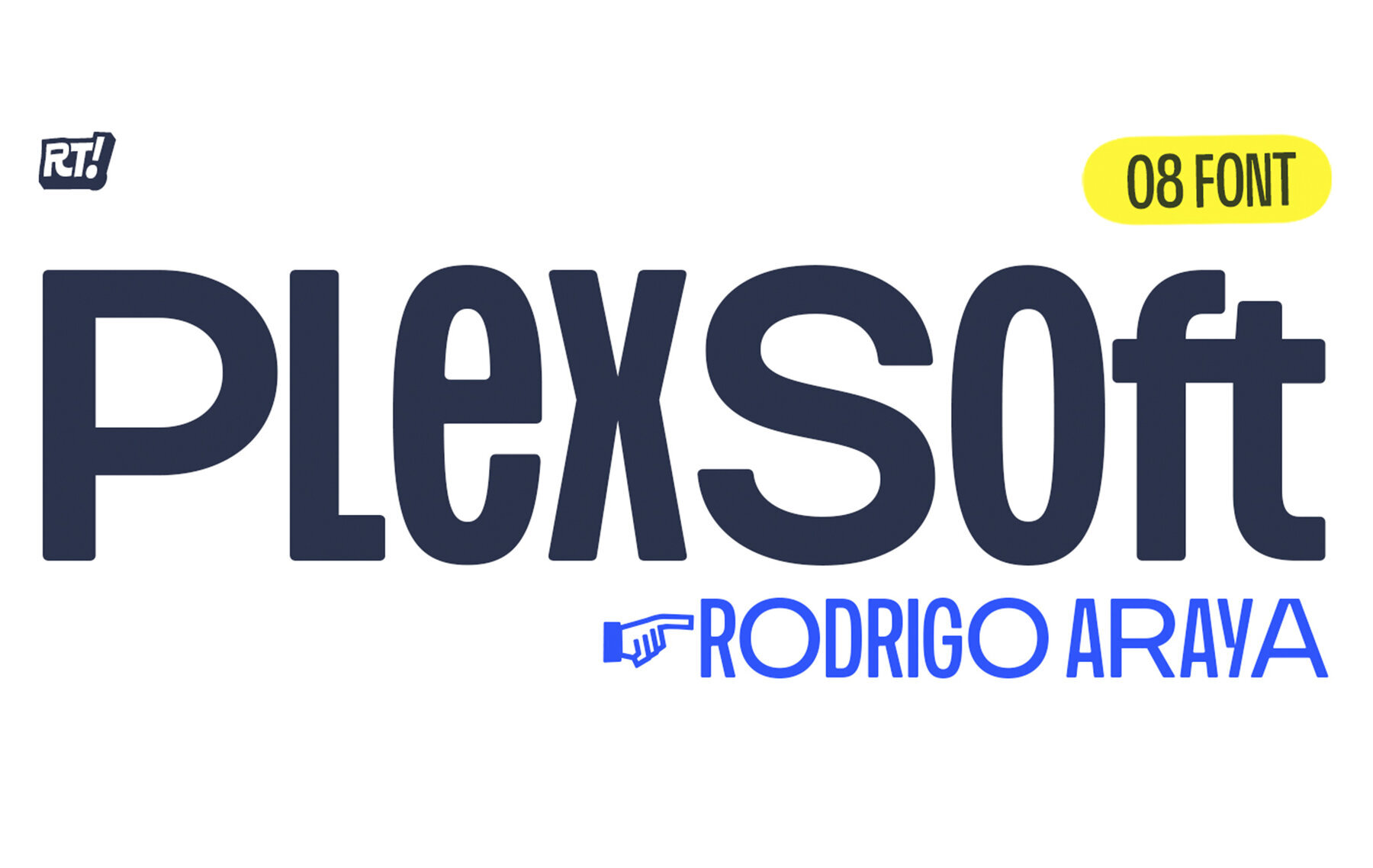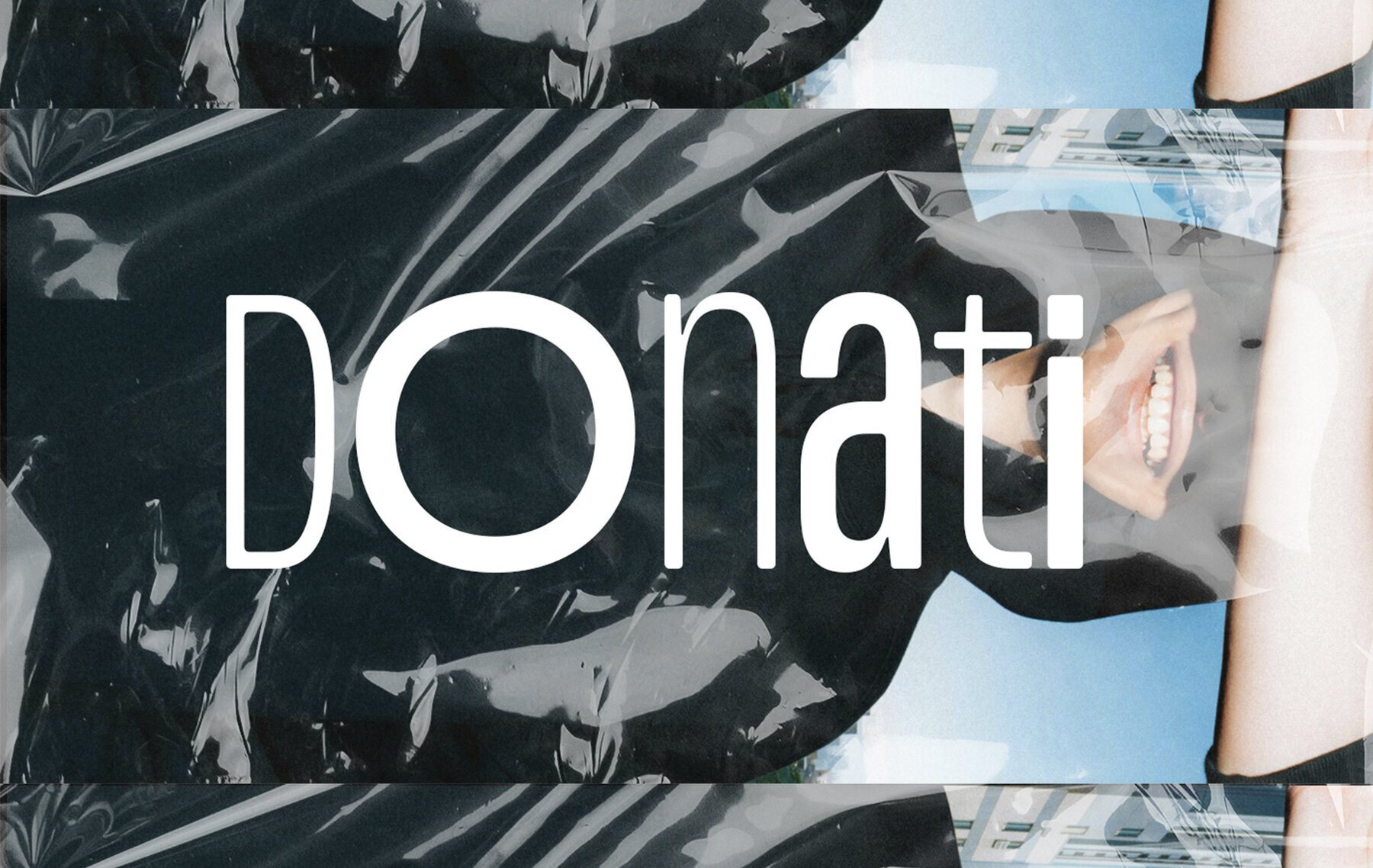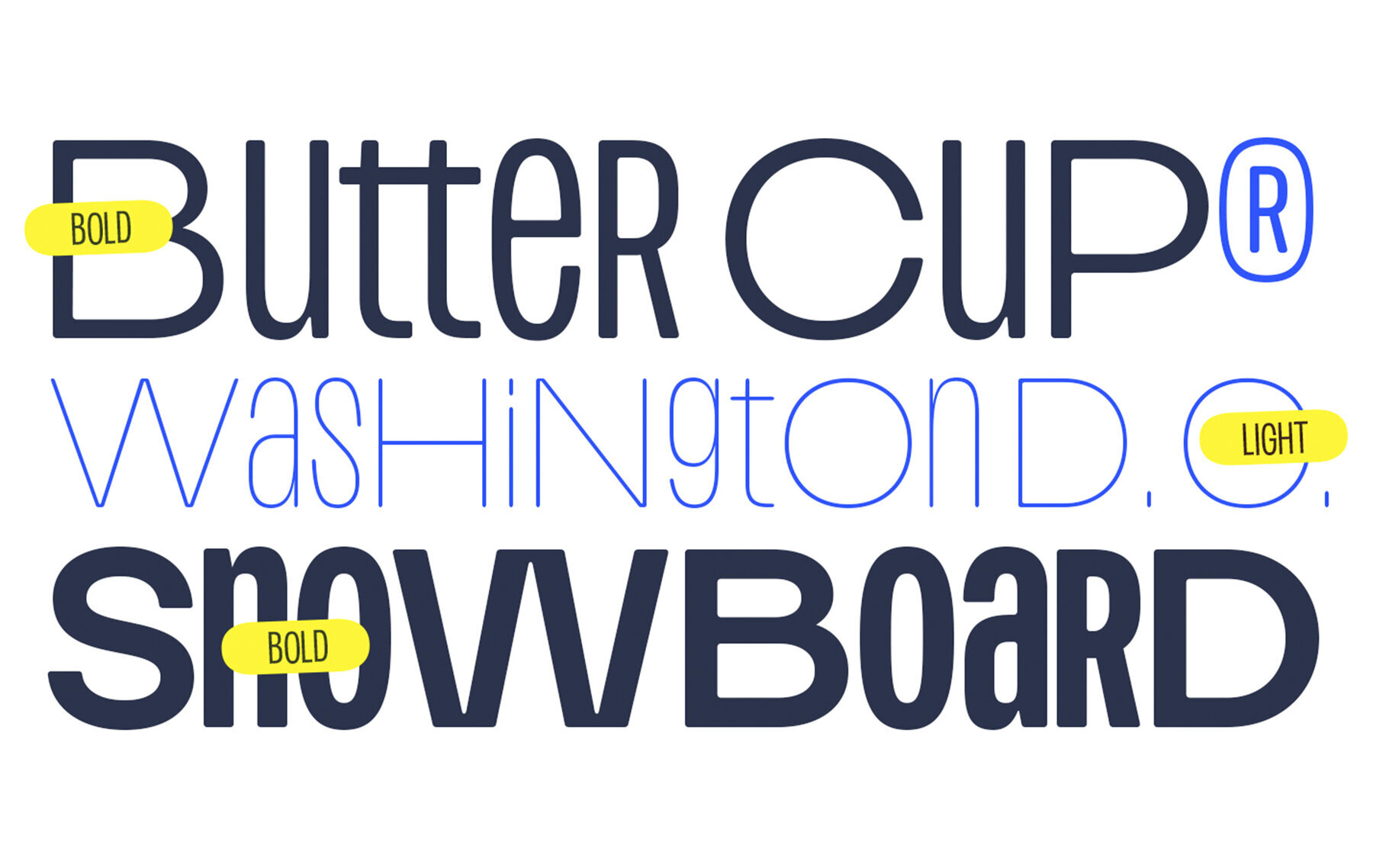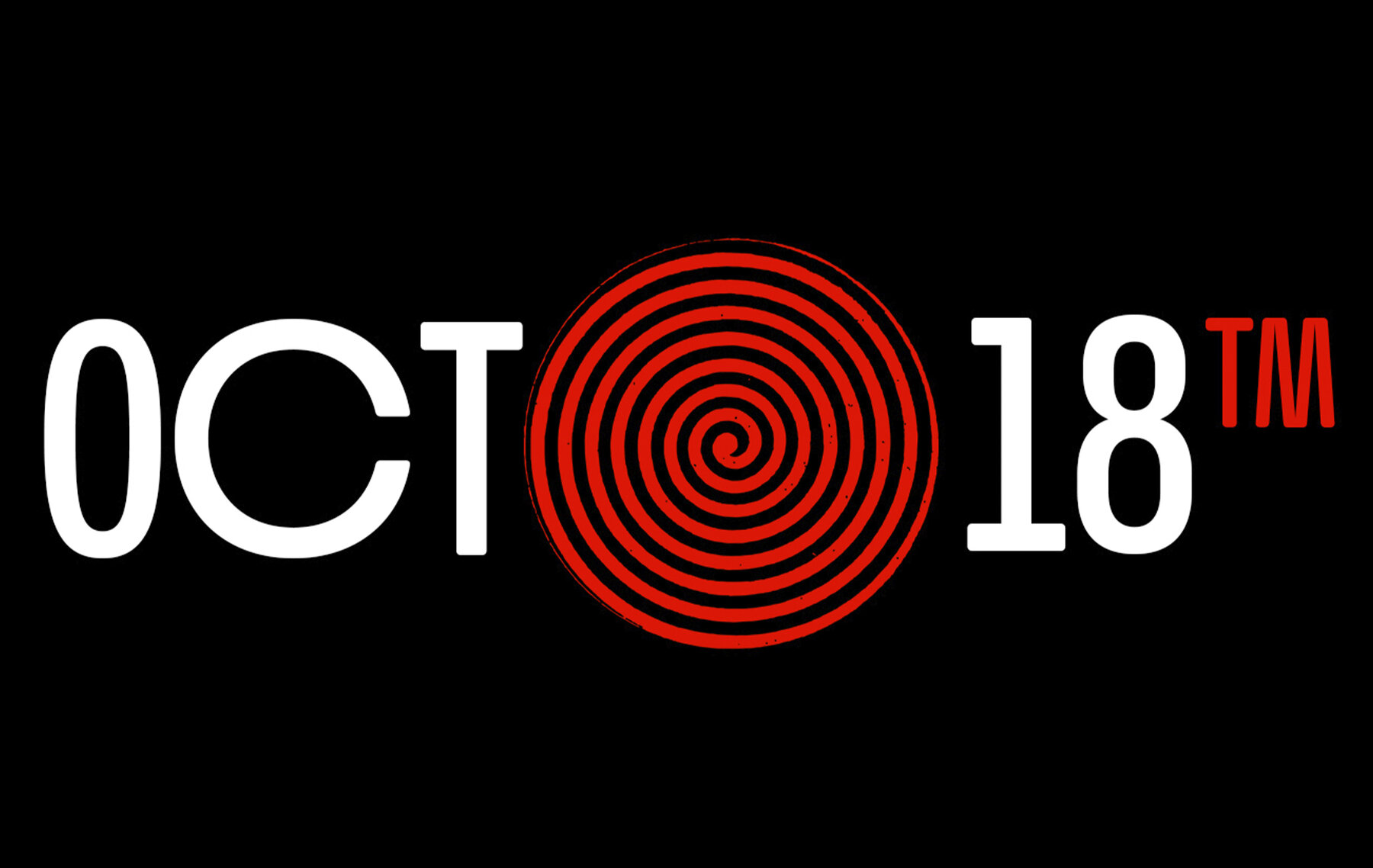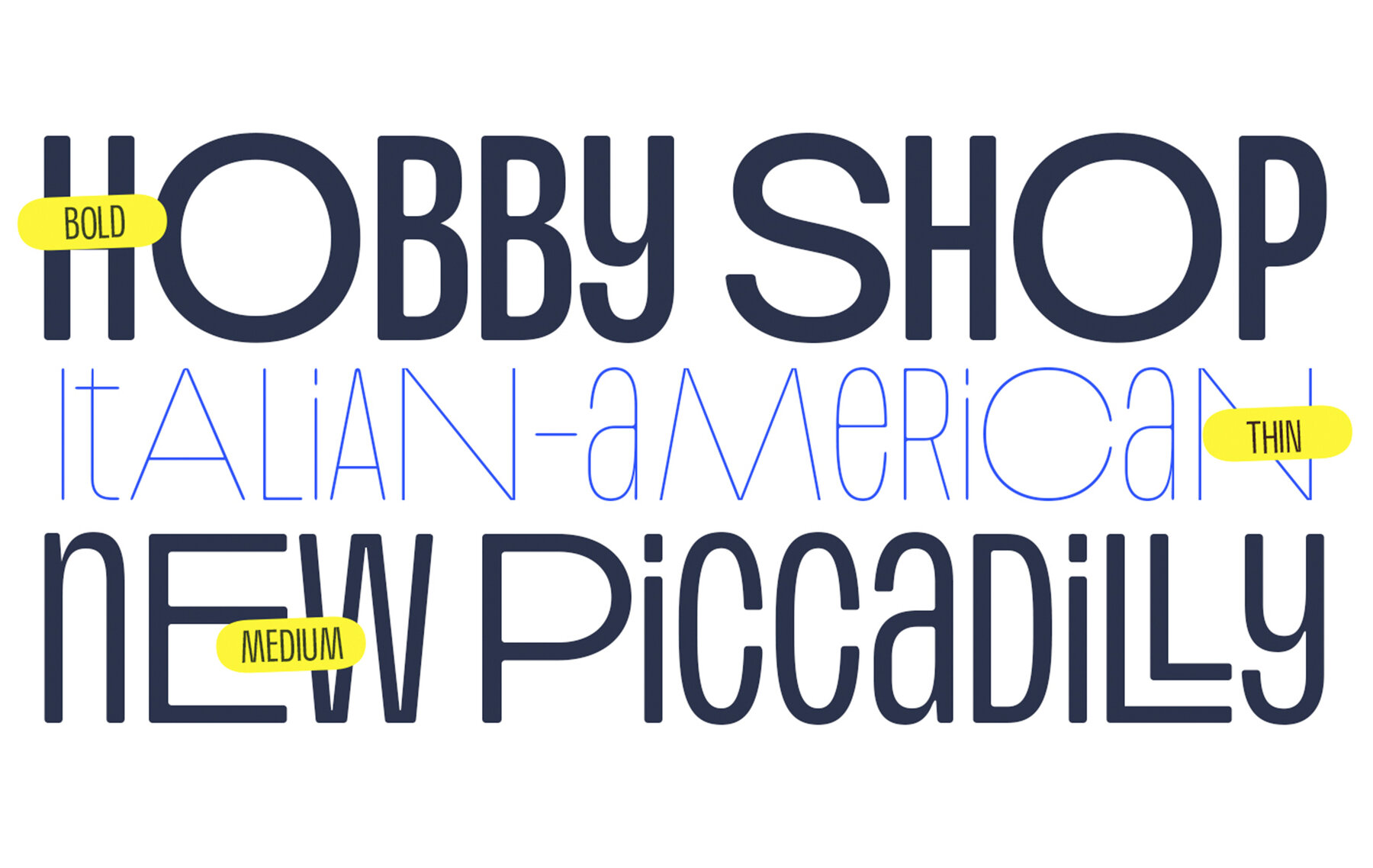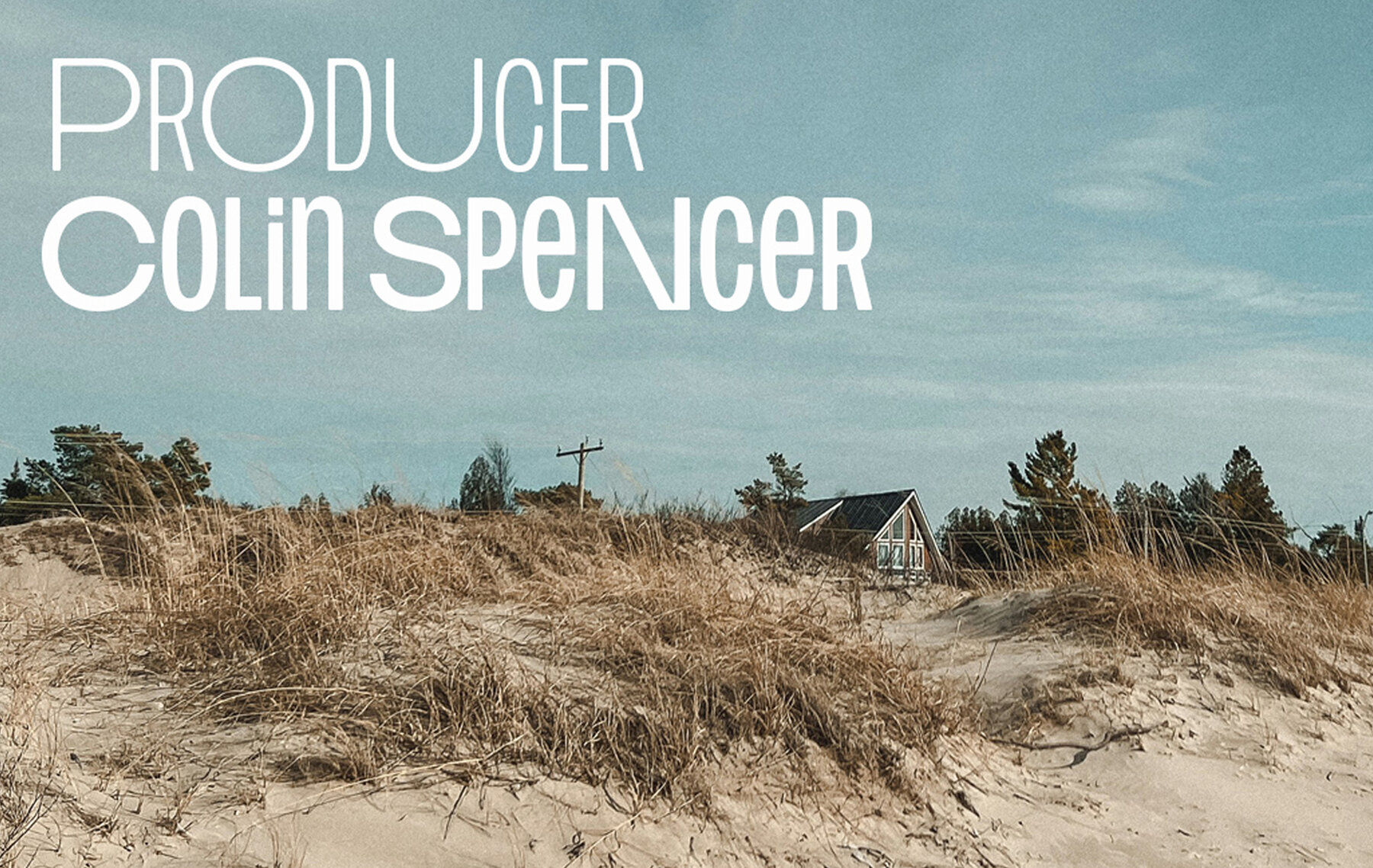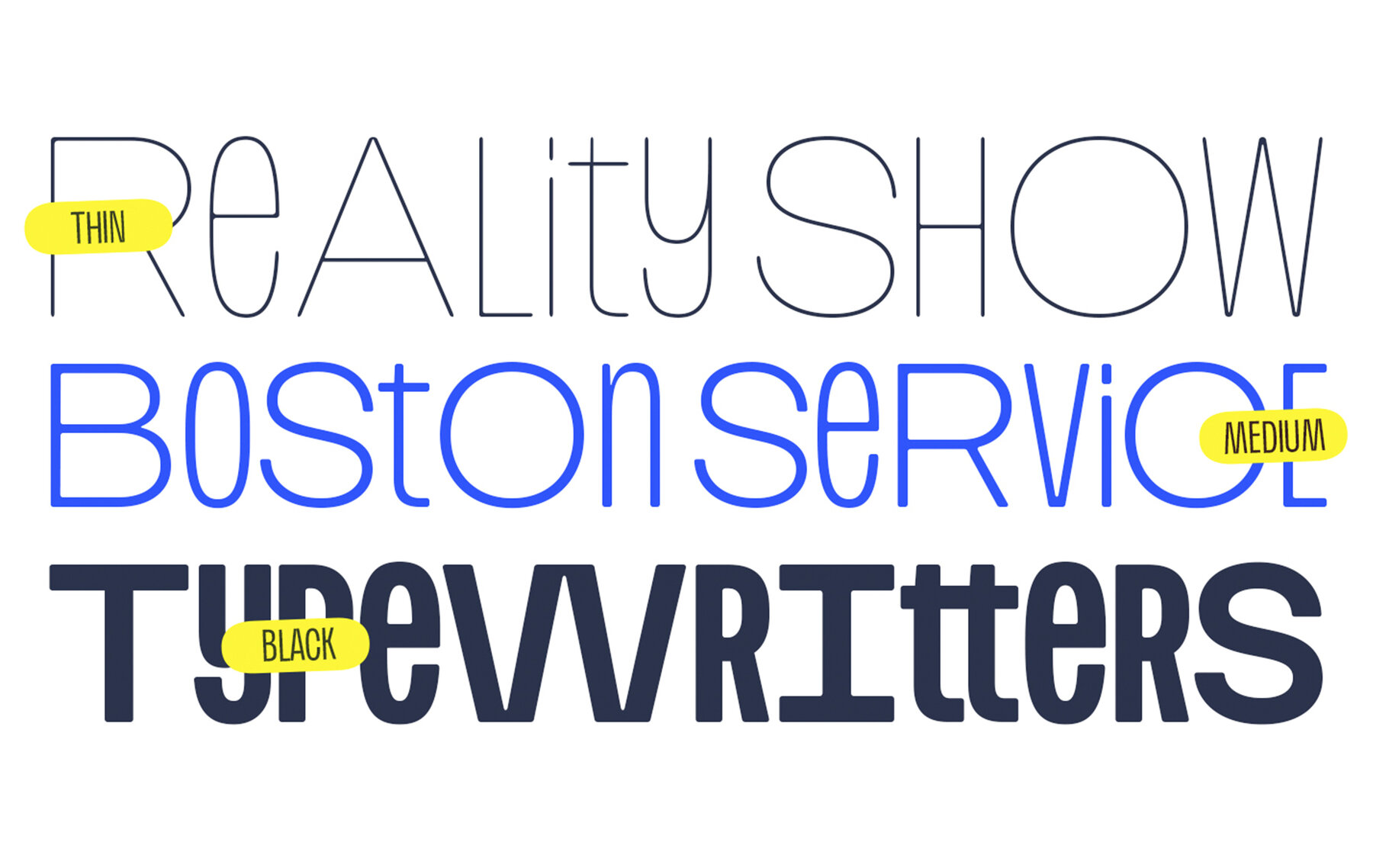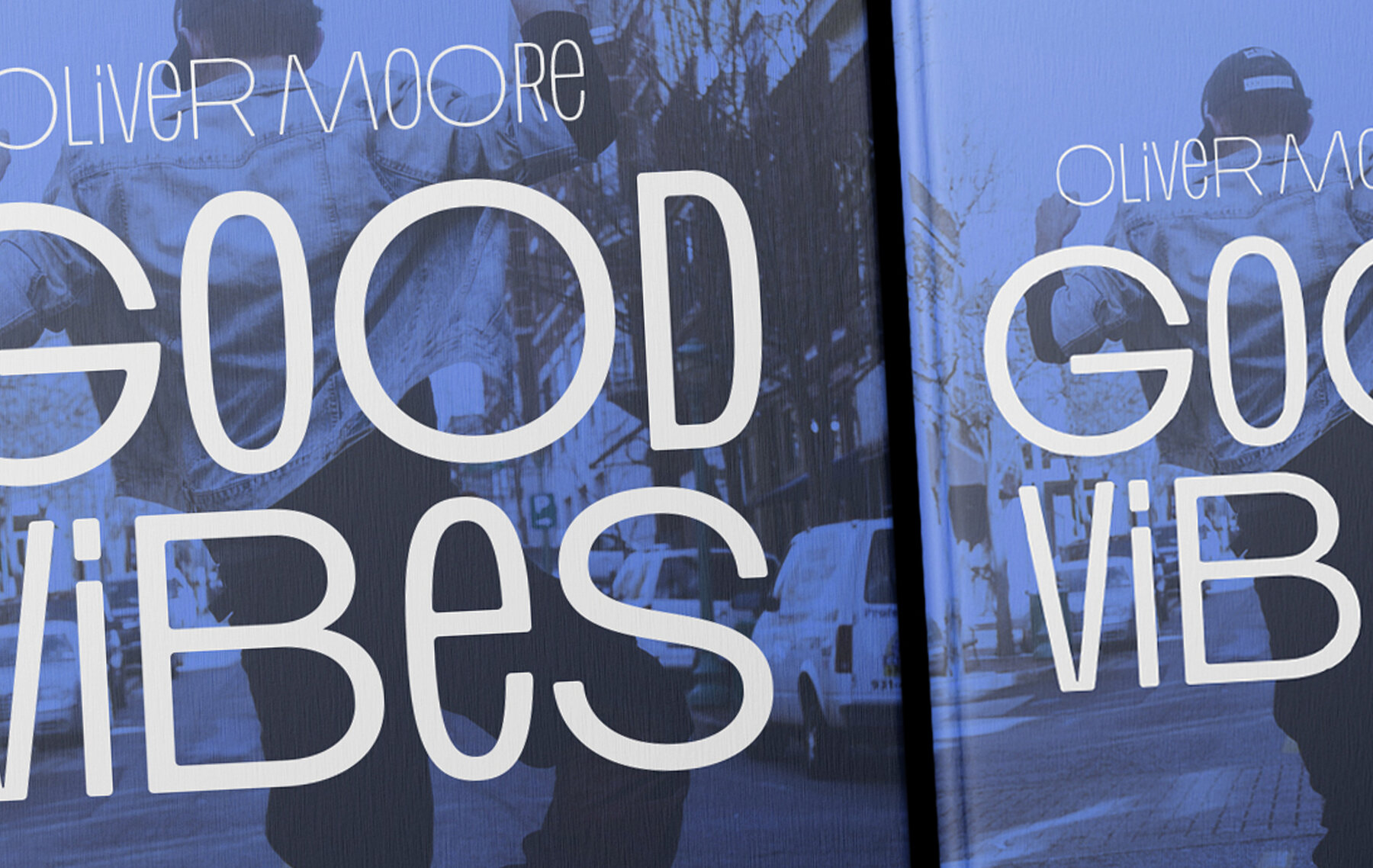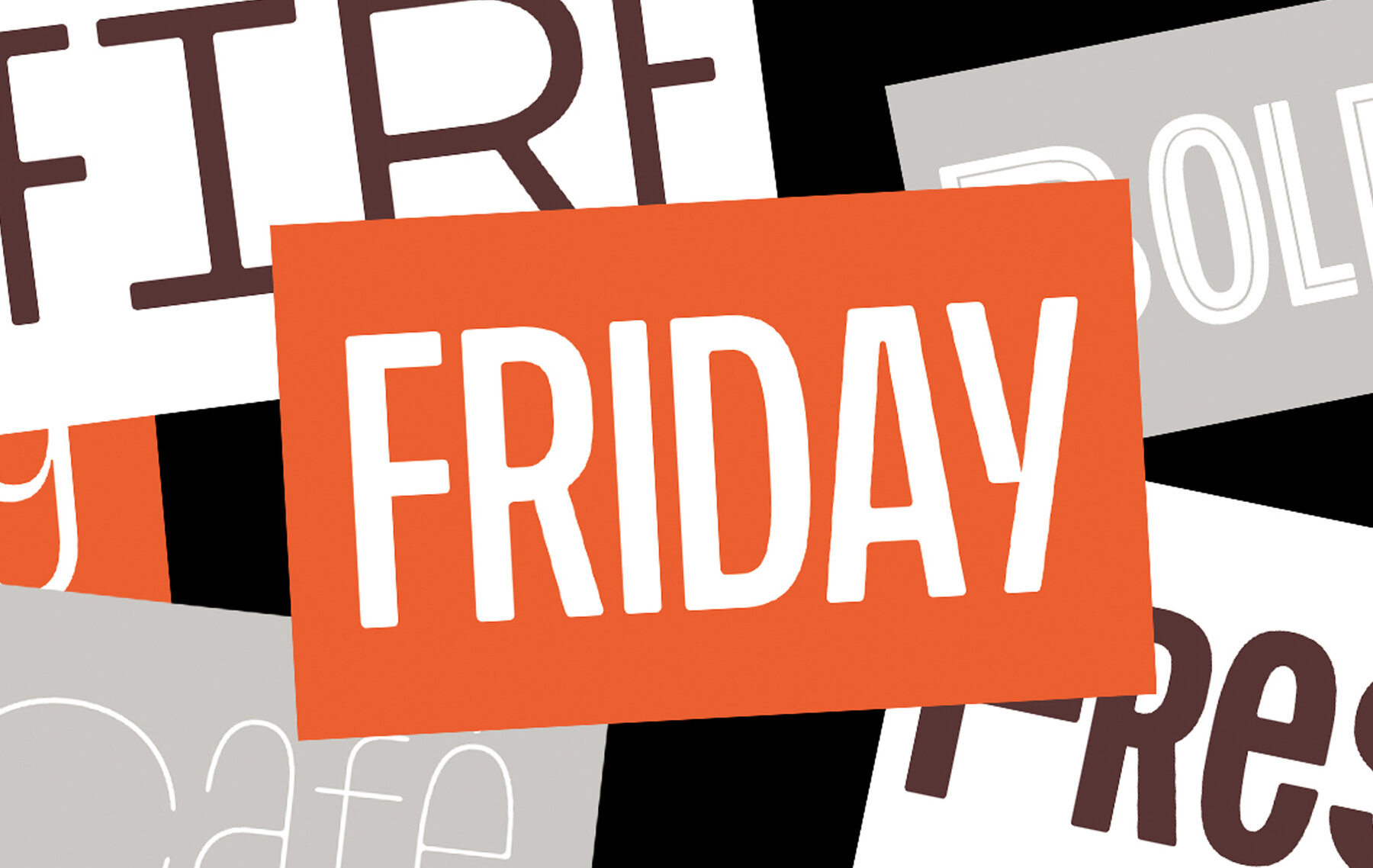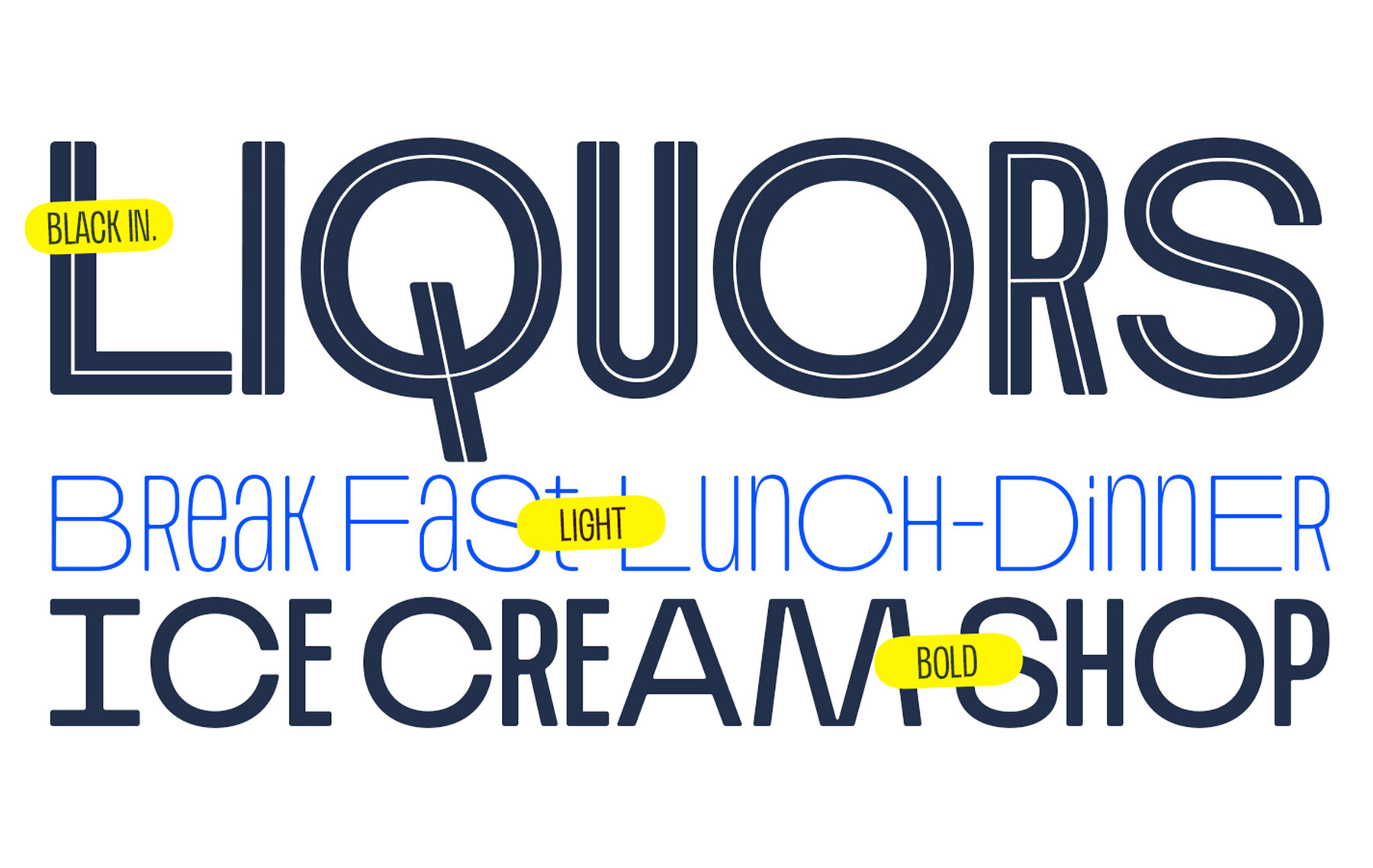
Plex Soft Font
Plex Soft offers a rounded interpretation of the robust Plex Beta, imbued with a touch of sophistication and fluidity. Its distinct personality is complemented by multiple weights, providing flexibility in design application across various projects.Plex Soft: Versatile Typeface with Rounded Elegance